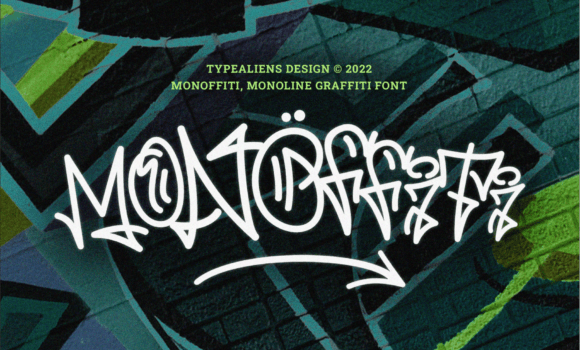
monoffiti
Monoffiti Font – Free Download Introduction to Monoffiti Font Monoffiti is a modern graffiti display font with monoline-style strokes, suitable to support urban art or street art designs. 📸 Preview Gallery 6 images 📌 Product Name Monoffiti Font 👤 Author